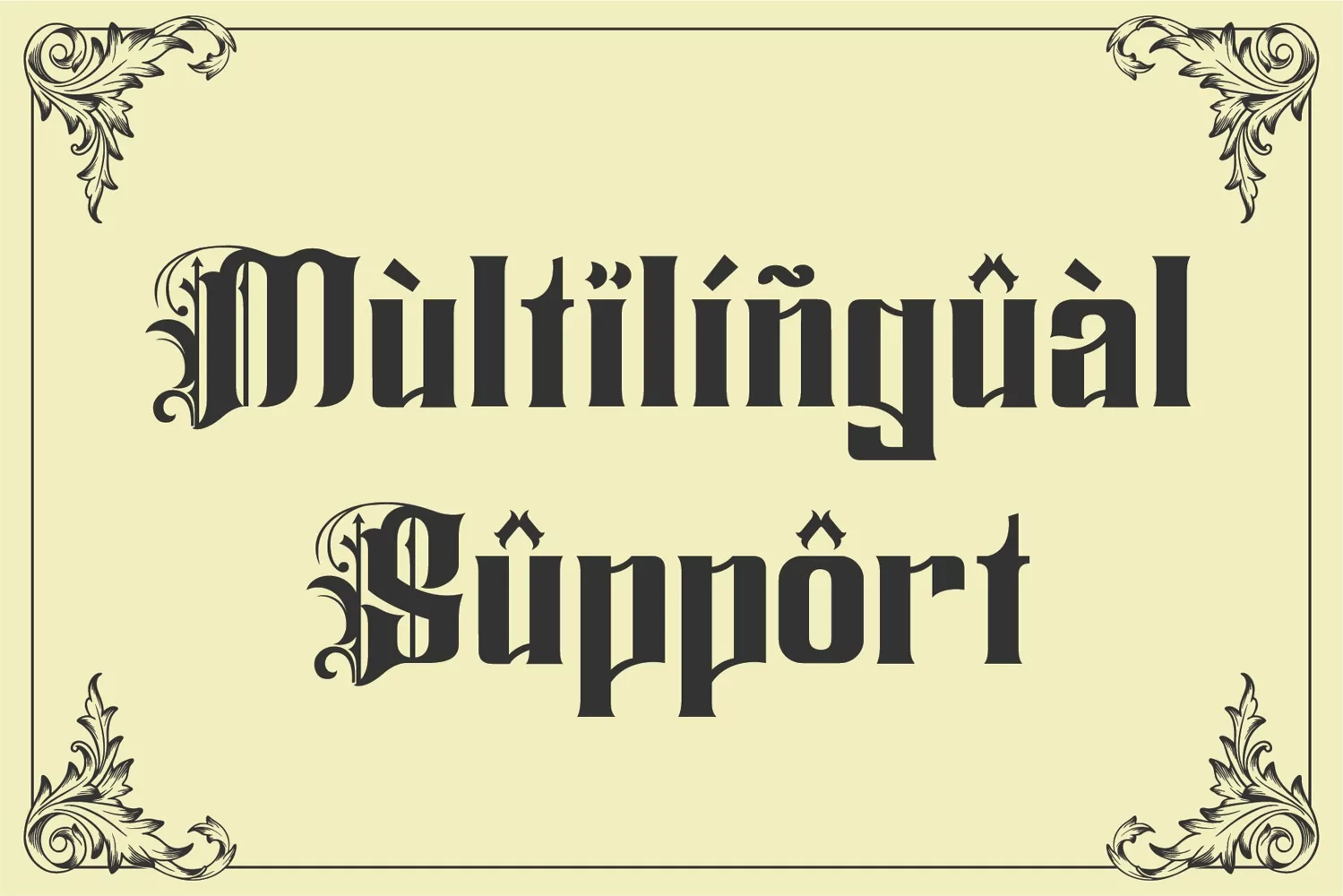
Jacob Wells - Vintage Font
If you looking for strong font for display or title this item is a great choice to make your design authentic.
Jacob Wells font has 185 character glyphs included the multilingual and alternate glyphs, the alternate glyphs will make your design more decorative.